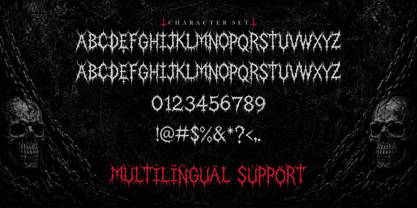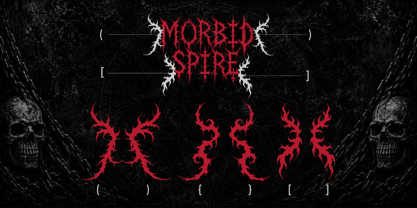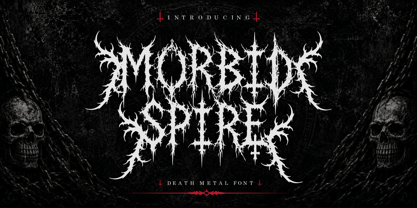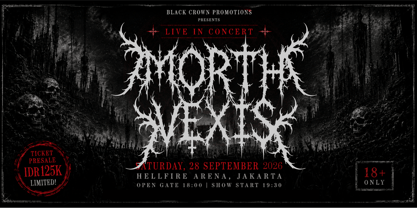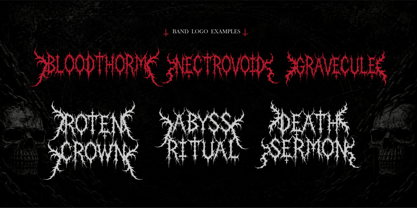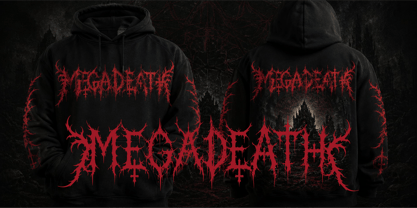
Morbid Spire
La familia tipográfica Morbid Spire fue diseñada por Sipanji y publicada por Sipanji21. Morbid Spire contiene 1 estilos. Más información sobre esta familia
Morbid Spire is an authentic Death Metal Font inspired by the raw visual language of underground extreme music. Built from sharp thorns, twisted roots, jagged branches, and chaotic organic structures, Morbid Spire embraces the aesthetics that have defined black metal, death metal, doom metal, and dark artistic culture for decades.
Unlike traditional display fonts, Morbid Spire behaves like visual artwork. Every letter is individually crafted to resemble naturally growing branches, ancient roots, and aggressive spikes that intertwine to create dense and intimidating typography. The result is a typeface that immediately evokes darkness, mystery, ritual symbolism, and underground energy.
Morbid Spire includes uppercase characters, numbers, punctuation, and multilingual support, providing everything needed for designers working on music branding, horror artwork, gothic illustration, fantasy publishing, apparel graphics, and promotional campaigns.
The font excels in projects such as:
• Death Metal Logos
• Black Metal Branding
• Album Covers
• Vinyl Artwork
• Festival Posters
• Horror Movie Titles
• Halloween Graphics
• Fantasy Games
• Medieval Artwork
• Tattoo Branding
• Gothic Fashion
• Alternative Merchandise
• Streaming Graphics
• YouTube Thumbnails
• Dark Editorial Design
Every character has been carefully illustrated to preserve the authentic handcrafted appearance commonly associated with legendary extreme metal logos. The intentionally chaotic structure creates visual complexity while maintaining recognizable letterforms suitable for dramatic display compositions.
Morbid Spire pairs exceptionally well with distressed paper textures, scratched metal, stone carvings, gothic architecture, skull illustrations, forests, ravens, occult symbols, ancient ruins, smoke, ash, and monochromatic palettes. Designers can further enhance the atmosphere using rough textures, embossing, grunge overlays, and cinematic lighting.
Because of its organic construction, the font works beautifully for logo creation where letters naturally merge into a cohesive symbol. It is equally effective for oversized headlines, promotional graphics, album packaging, streaming artwork, clothing prints, posters, banners, stickers, and merchandise.
Although inspired primarily by death metal culture, Morbid Spire also complements horror novels, supernatural podcasts, haunted attractions, medieval fantasy worlds, role-playing games, gothic photography, dark branding, and mysterious editorial layouts.
The detailed branching structures create an instantly recognizable identity while maintaining artistic flexibility across print and digital media. Whether displayed in pure white over black backgrounds or combined with distressed textures and atmospheric effects, Morbid Spire always delivers maximum visual impact.
Designers searching for a handcrafted Death Metal Font, Black Metal Logo Font, Occult Typeface, Extreme Horror Display Font, or Dark Fantasy Typography will find Morbid Spire to be an outstanding creative tool capable of producing unforgettable visual identities.
Powerful, sinister, organic, and unapologetically brutal, Morbid Spire captures the spirit of underground metal culture while offering the versatility required for modern creative projects.